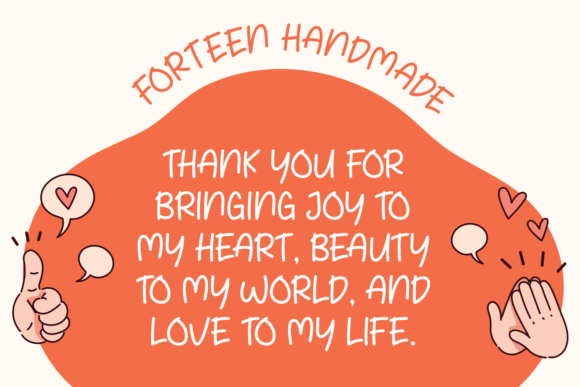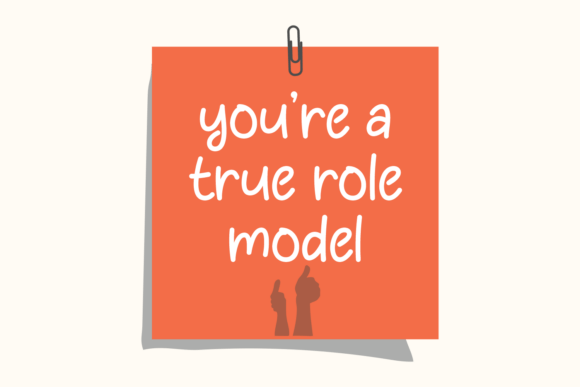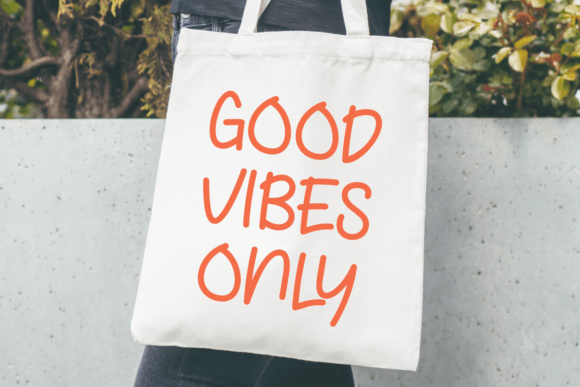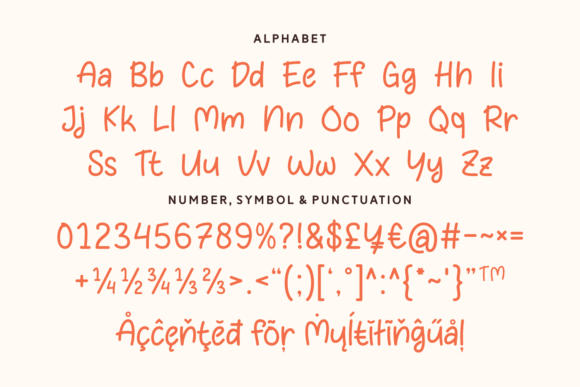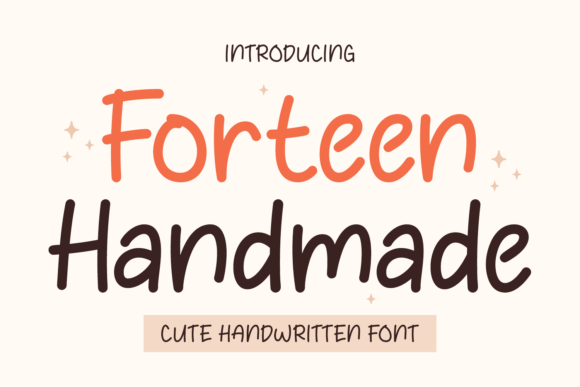
Forteen Handmade Font: Adding a Touch of Joy and Whimsy to Your Designs
In the world of typography, a font can make all the difference in the success of a design project. If you’re looking for a typeface that exudes warmth, friendliness, and approachability, look no further than the Forteen Handmade font. This delightful, handwritten font is designed to bring a sense of joy and playfulness to your designs, making it perfect for crafts, children’s products, and cozy home-style branding.
The Characteristics of Forteen Handmade Font
The Forteen Handmade font features soft, rounded forms and a friendly, casual rhythm that is sure to capture the hearts of your audience. The chunky, legible characters ensure that your message remains clear while feeling warm and inviting. The font’s cheerful and “bubbly” appearance makes it an excellent choice for designs that require a touch of whimsy and personality.
Perfect for Crafts, Children’s Products, and Cozy Home-Style Branding
Forteen Handmade font is particularly well-suited for designs that cater to a younger audience or those that require a friendly, approachable tone. Whether you’re creating a logo for a children’s toy brand, a poster for a kids’ classroom, or a label for a handmade craft product, this font is sure to deliver. The font’s organic feel and charming appearance make it an excellent choice for cozy home-style branding, adding a touch of warmth and personality to your designs.
Key Features of Forteen Handmade Font
- Cheerful and playful appearance: The Forteen Handmade font features a delightful, handwritten design that is sure to bring a smile to your audience’s faces.
- Soft, rounded forms: The font’s soft, rounded forms create a friendly and approachable tone, perfect for designs that require a warm and inviting feel.
- Chunky, legible characters: The font’s chunky characters ensure that your message remains clear and easy to read, making it perfect for designs that require a bold and playful appearance.
- Organic feel: The Forteen Handmade font has an organic, handmade feel that adds a touch of personality and whimsy to your designs.
How to Use Forteen Handmade Font in Your Designs
The Forteen Handmade font is incredibly versatile and can be used in a variety of design projects. Here are a few ideas to get you started:
- Logos and branding: Use the Forteen Handmade font to create a logo or brand identity that exudes warmth and friendliness.
- Posters and flyers: The font’s cheerful appearance makes it perfect for posters and flyers that require a playful and attention-grabbing design.
- Children’s products: The Forteen Handmade font is an excellent choice for children’s products, such as toys, games, and educational materials.
- Crafts and DIY projects: The font’s handmade feel makes it perfect for crafts and DIY projects, such as handmade cards, gift tags, and labels.
In conclusion, the Forteen Handmade font is a delightful, handwritten typeface that is sure to bring a sense of joy and whimsy to your designs. With its soft, rounded forms, friendly rhythm, and chunky, legible characters, this font is perfect for crafts, children’s products, and cozy home-style branding. Whether you’re a designer, crafter, or DIY enthusiast, the Forteen Handmade font is an excellent choice for adding a touch of personality and warmth to your designs.